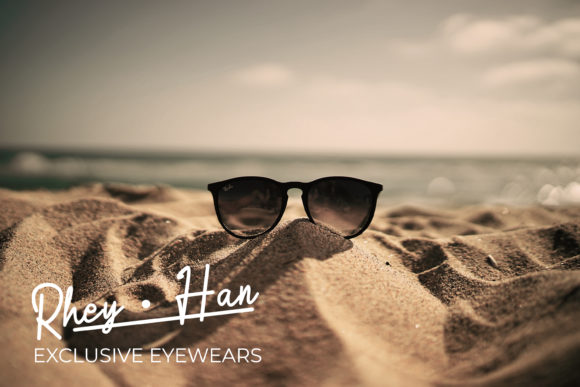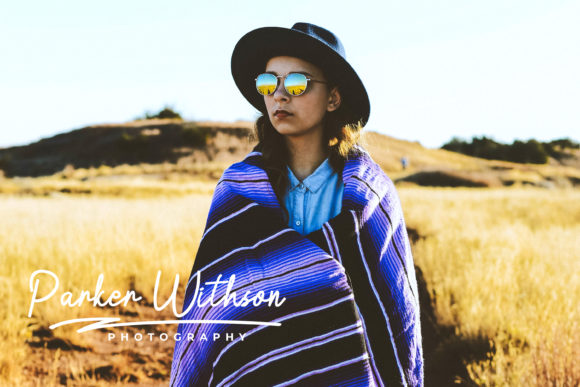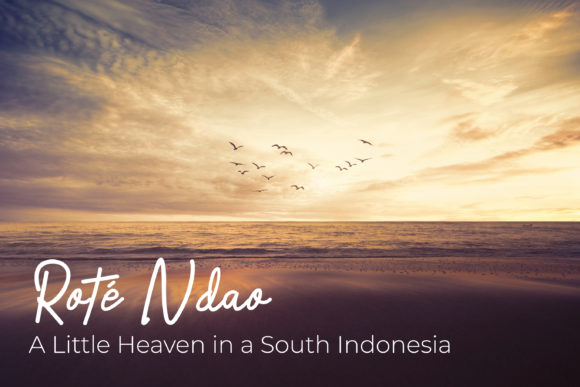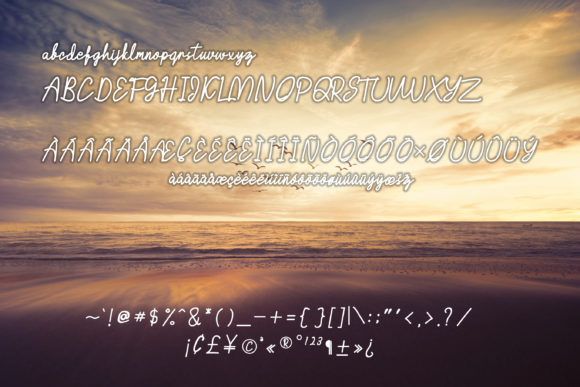
Rote Font
About Rote Font
Rote is a casual, yet striking handwritten font with an authentic feel. Use it to add a personal flavor to any creative project!